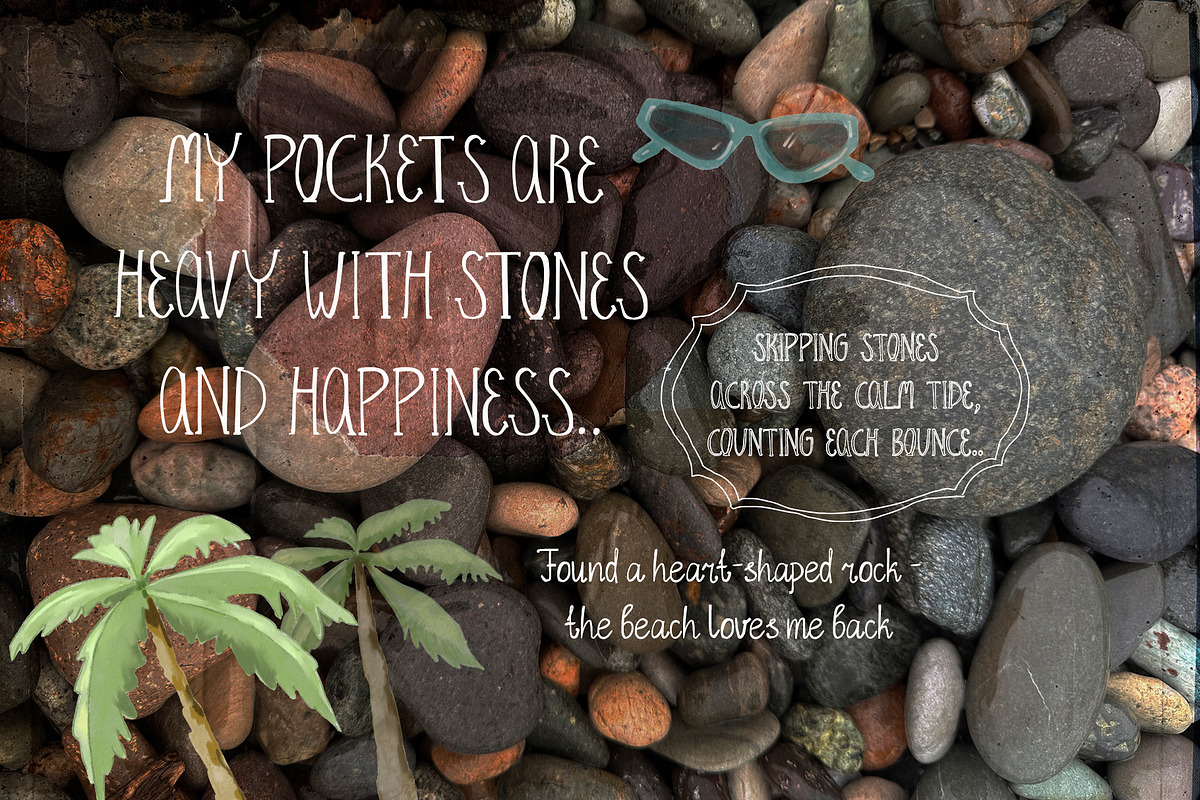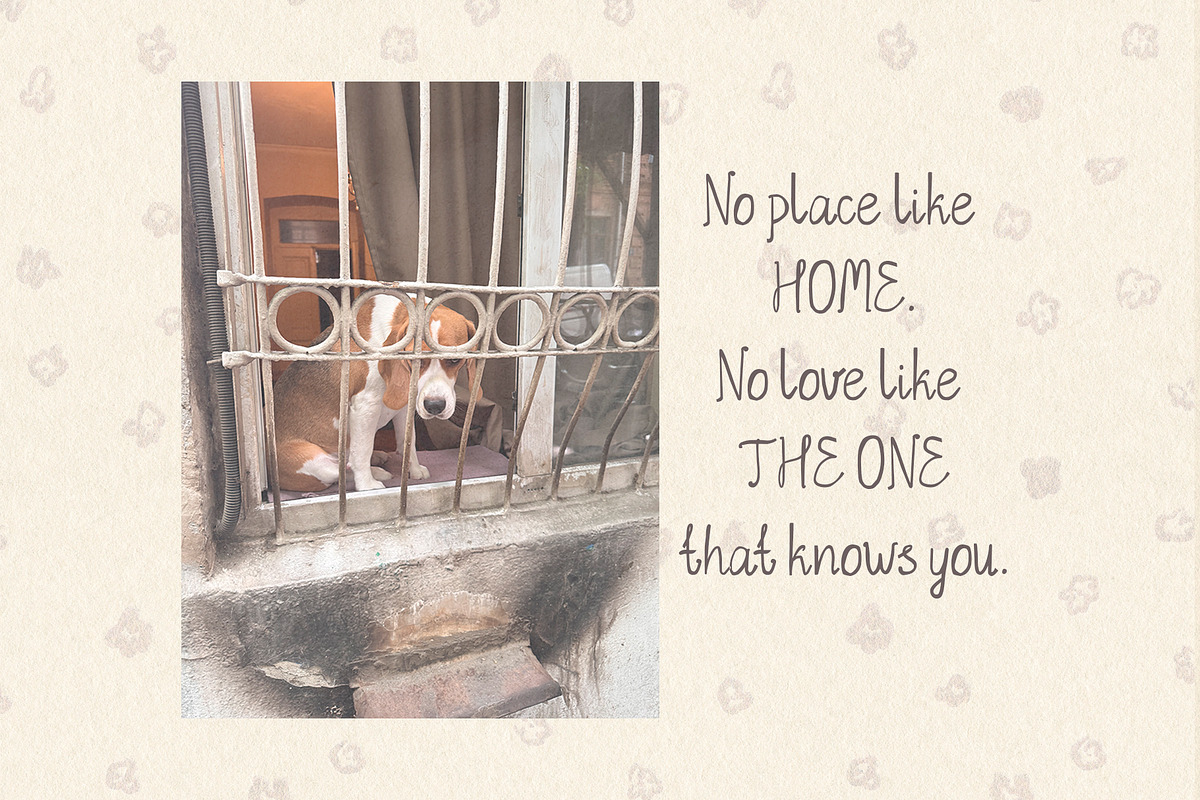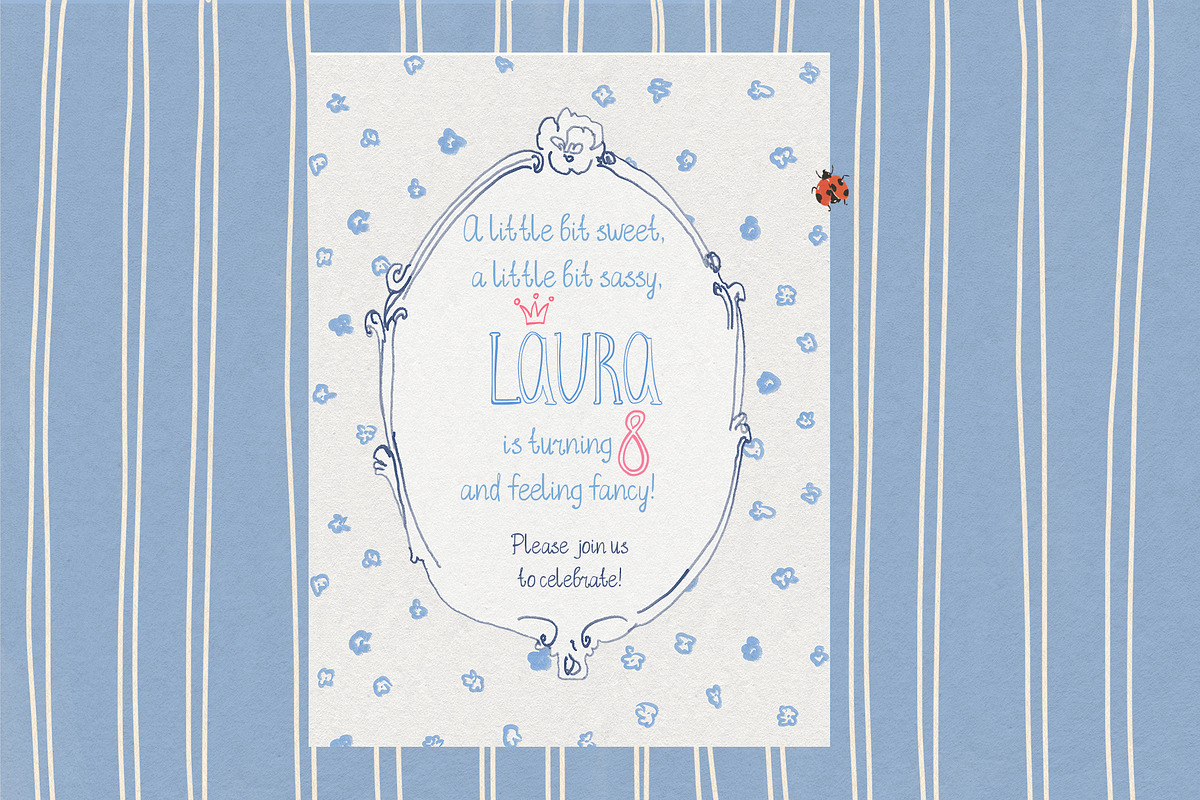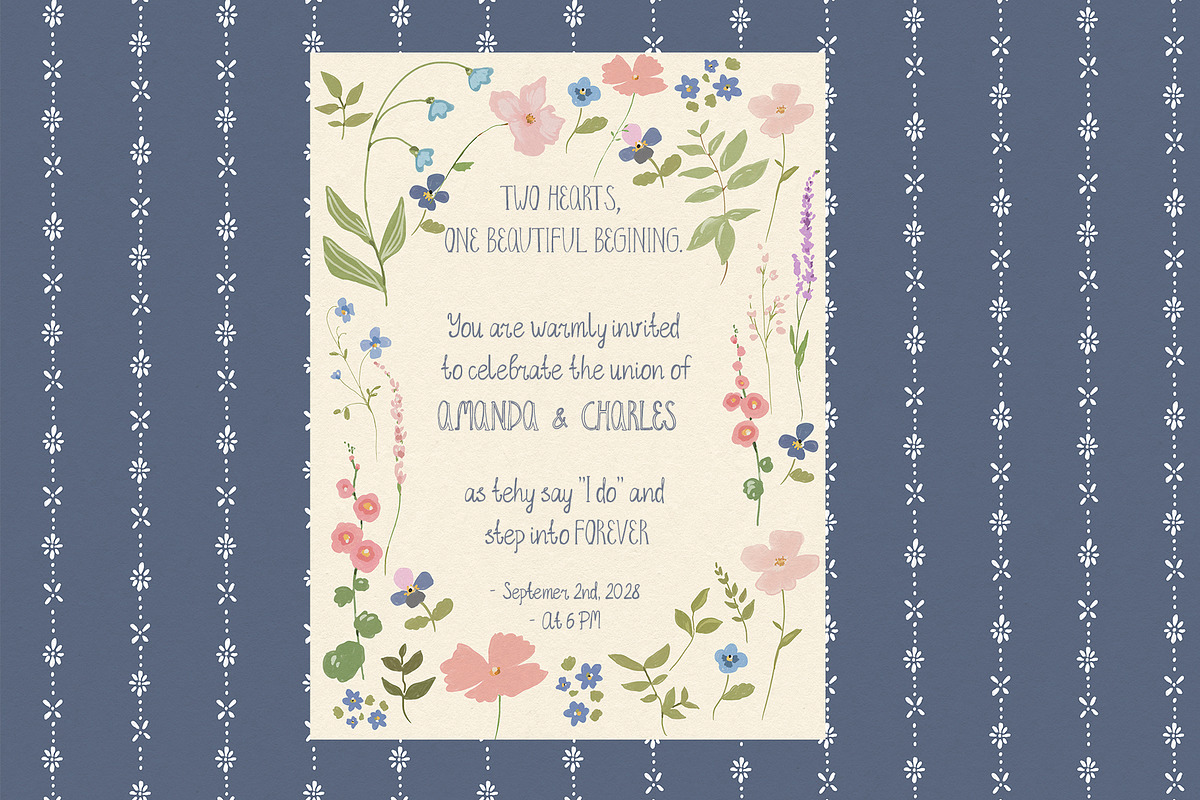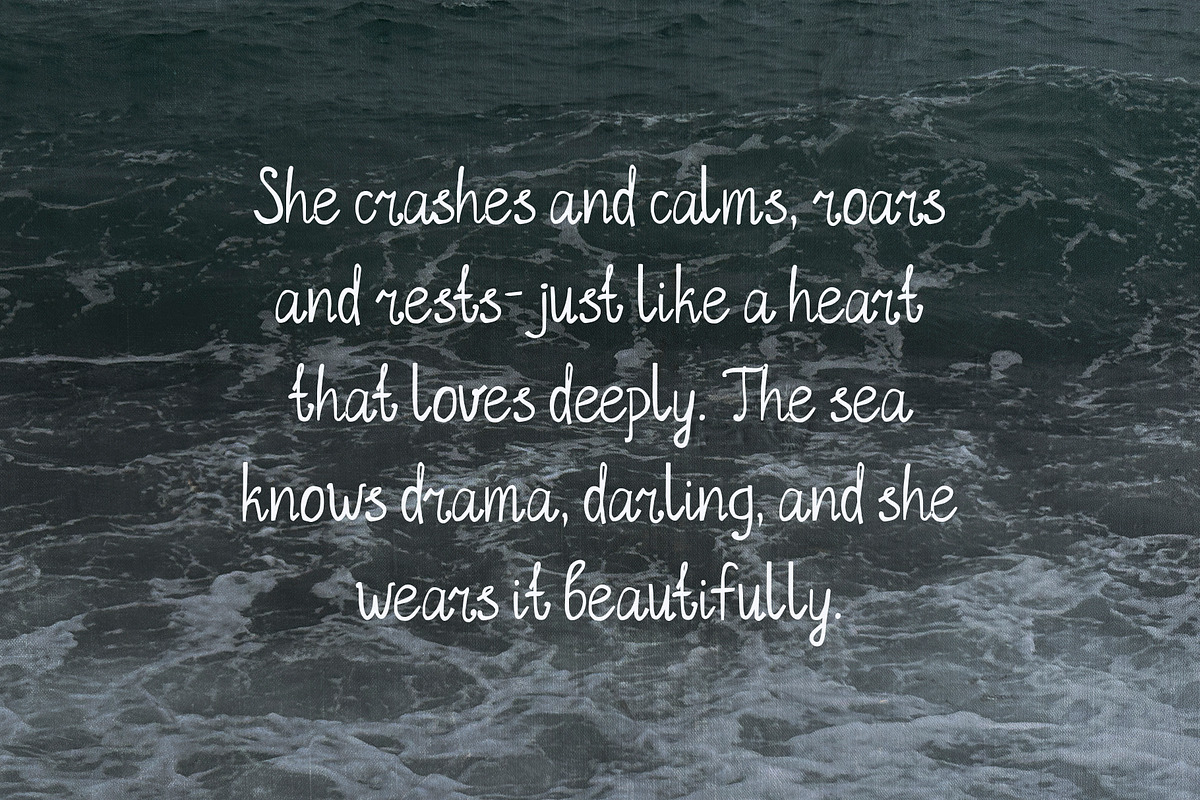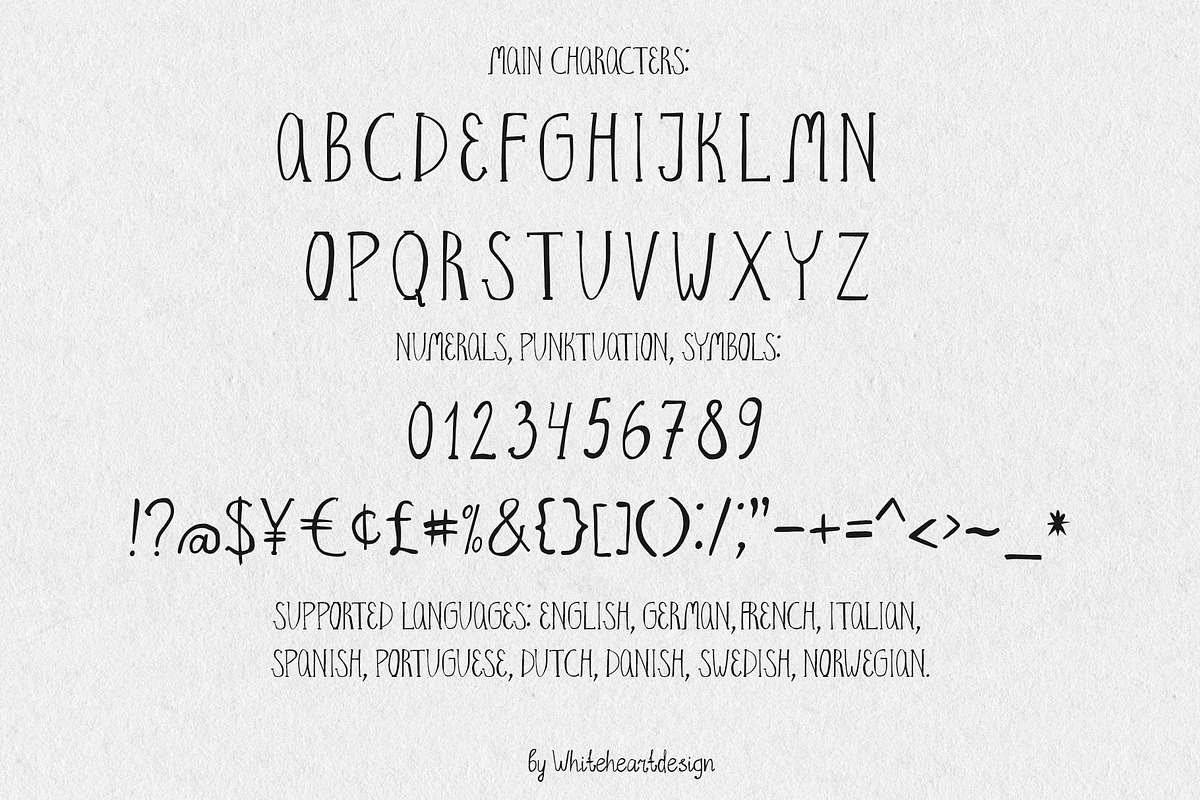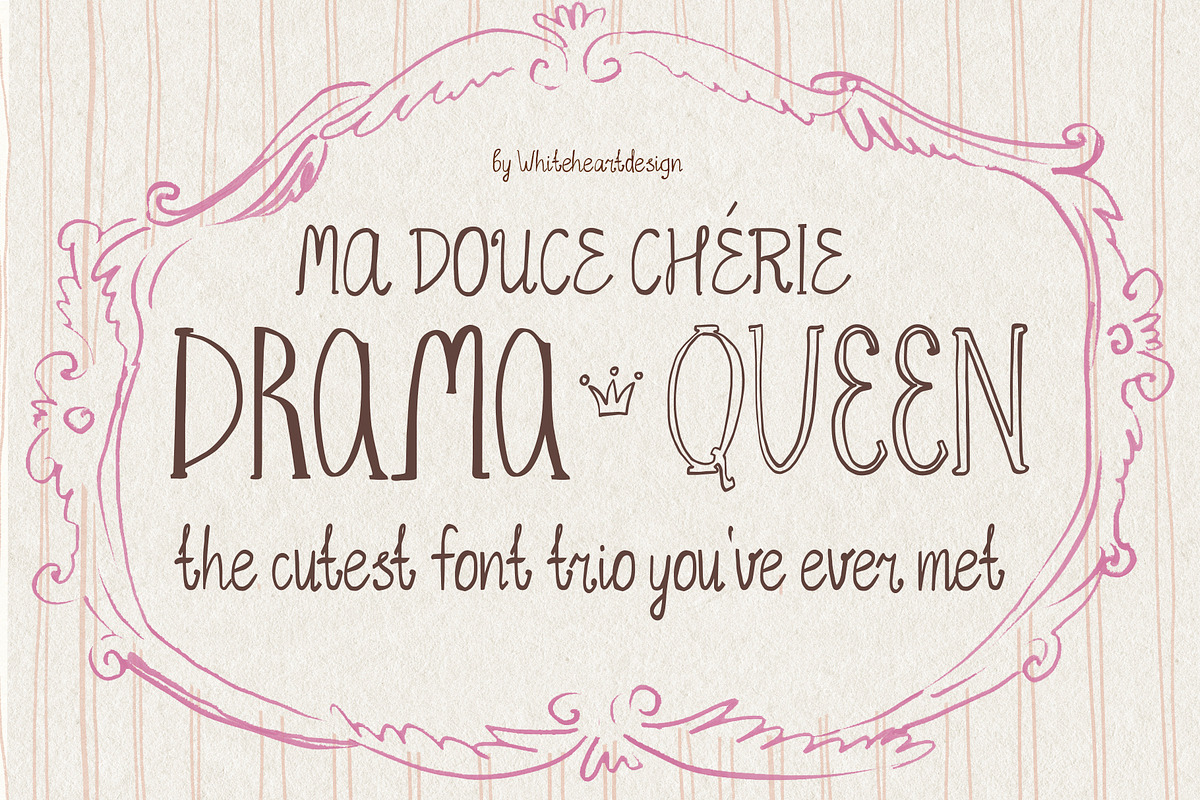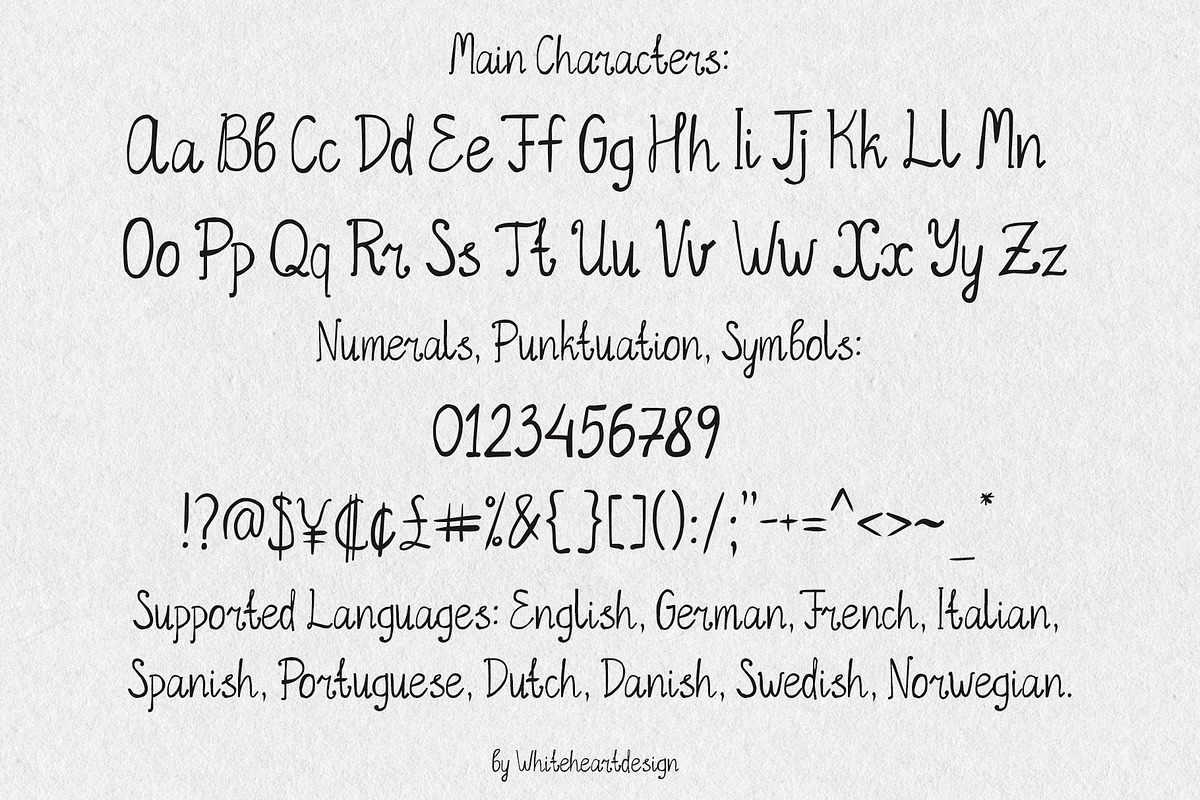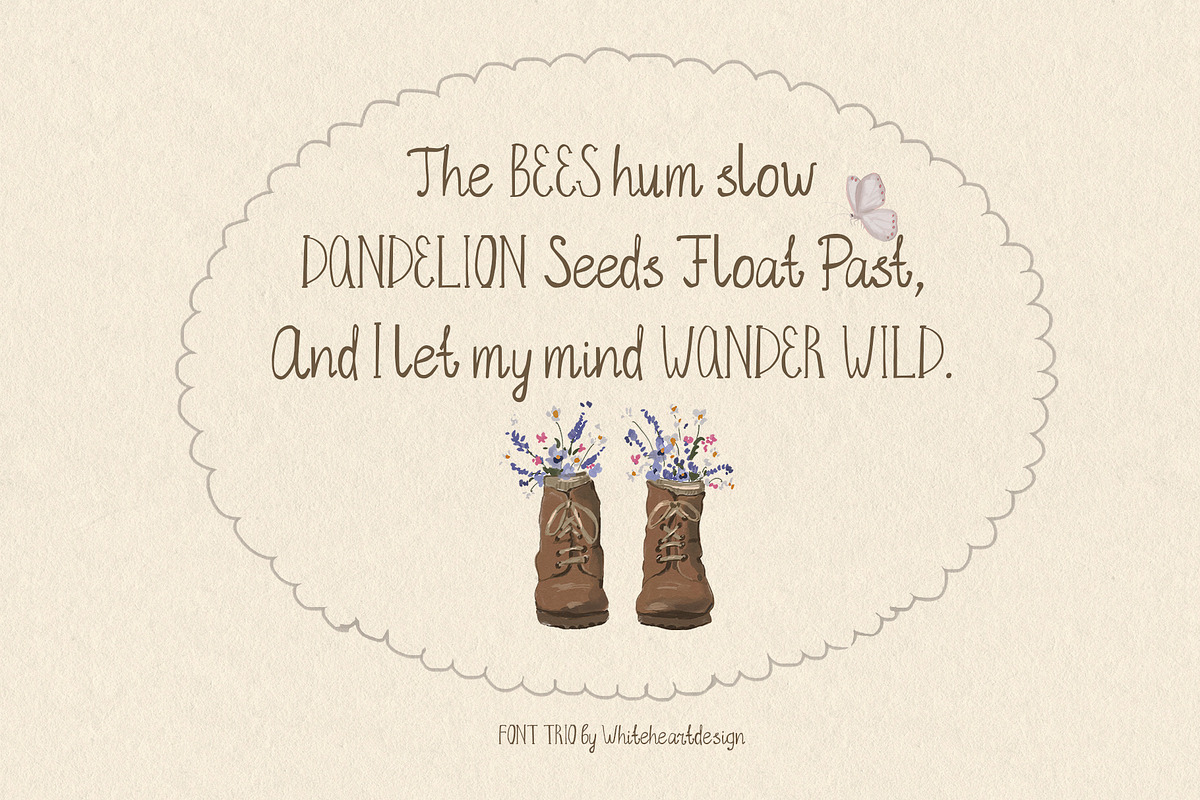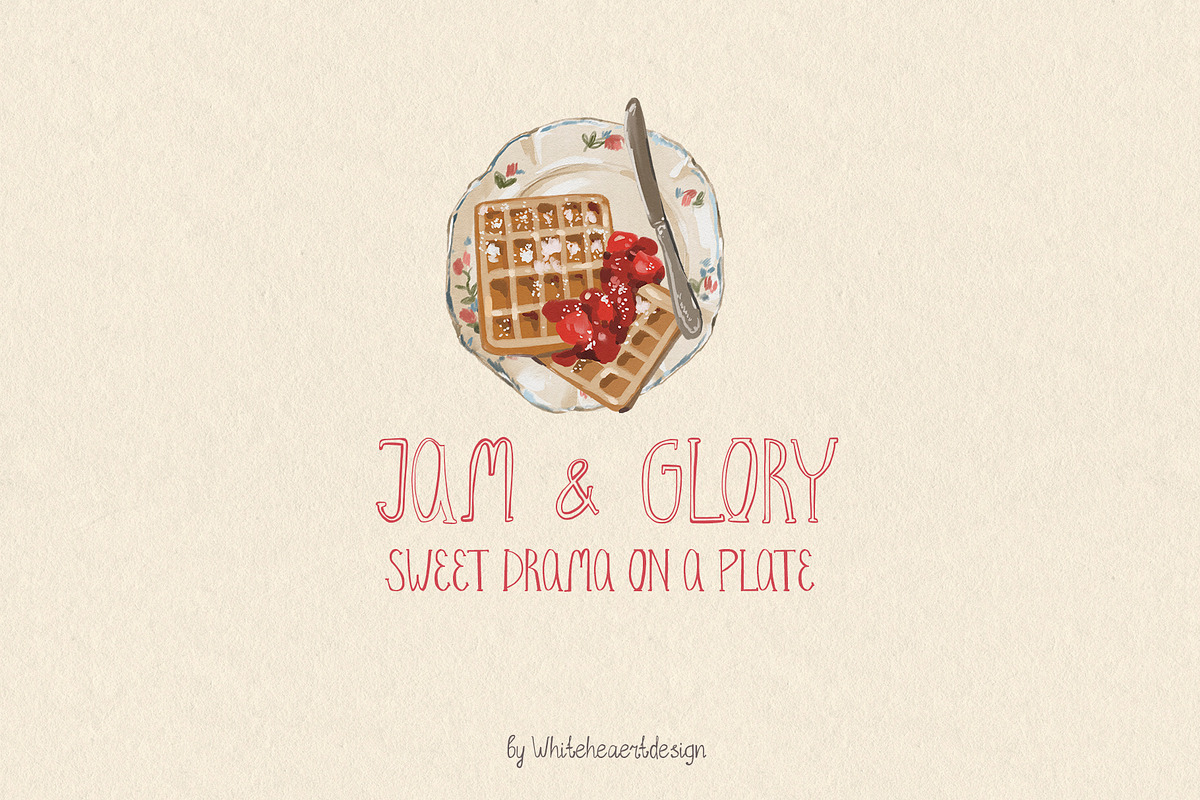
Hand Written Font Trio Serif Script
My Sweet Darling Drama Queen | Organic Serif & Script Font Trio for Branding, Weddings & Wall Art
It's a delightfully imperfect handwritten font trio that brings together the warmth of slow living with a touch of playful theatricality. Just like its name suggests, this font family is sweet enough to hug and extra enough to remember—with just the right amount of subtle flourishes to keep things charming without ever feeling overdone.
Inspired by the gentle rhythms of cottage gardens, farmhouse kitchens, and the beauty of handcrafted things, this font trio captures the essence of a slower, more intentional life. It feels like a letter written by a dear friend, a label on a jar of homemade jam, or a sign painted on reclaimed wood. Each font carries that same heartfelt, homespun quality—imperfect, honest, and full of character.
This versatile 3-font family includes:
· An organic serif font\\\\\\\\\\\\\\\_ \\\\\\\\\\\\\\\_– warm, grounded, and effortlessly elegant. With its slightly irregular strokes and subtle handwritten imperfections, it feels like it was drawn with a steady but human hand. Perfect for branding, invitations, and any project that needs a touch of timeless charm with a cozy twist.
\\\\\\\\· \\\\\\\\An outline organic serif font – the perfect companion to the solid serif. Light, airy, and delicately whimsical, this outline version adds depth and contrast to your designs. Use it for layering, subtle accents, or to create a beautiful hand-lettered effect that feels soft and dreamy.
\\\\\\\\· An organic script font \\\\\\\\– flowing, unhurried, and full of personality. With its gentle connections and occasional subtle flourishes, it feels like a note written with a cup of tea in hand. Ideal for heartfelt quotes, wedding invitations, and anything that needs a personal, tender touch.
All three fonts share the same imperfect, hand-drawn aesthetic—no two letters are exactly alike, and that's exactly the point. They're designed to work beautifully together, offering endless possibilities for mixing, matching, and layering.
· Wedding invitations, save-the-dates, and thank-you cards
· Branding for small businesses, boutiques, and artisan makers
· Wall art quotes and inspirational prints
· Social media graphics and Instagram posts
· Product packaging and labels for handmade goods
· Greeting cards, stationery, and journaling
· Blog headers and lifestyle content
· Farmhouse-style signage and home decor
· Logo design for cafes, bakeries, and lifestyle brands
· Book covers and editorial design
· Canva templates and Cricut crafts
· Quote graphics and typographic posters
· Slow living and mindfulness content
Why you'll love this font trio:
There's something deeply comforting about a font that doesn't try to be perfect. These letters are hand-drawn, slightly irregular, and full of warmth—like something you'd find in a cherished notebook or a recipe card passed down through generations. The subtle flourishes add just the right amount of sweetness and elegance, while the outline serif offers a delicate, dreamy alternative for layering and accents.
Whether you're designing a dreamy wedding suite, crafting the perfect Instagram quote, building a brand that feels both sweet and unforgettable, or creating wall art that speaks to the heart, My Sweet Darling Drama Queen gives you the warmth, personality, and versatility you need.
It's sweet, it's charming, it's a little bit dramatic—and it's ready to bring your creative visions to life.